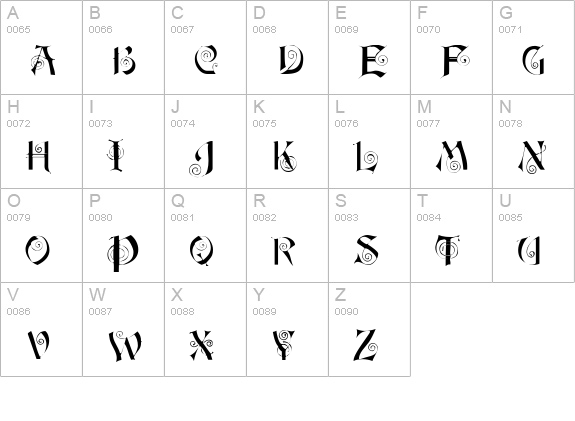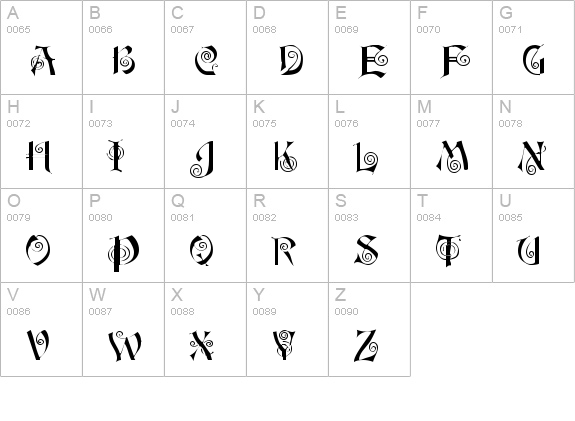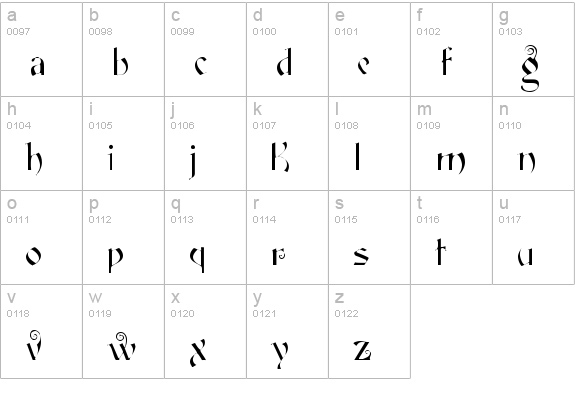
FairyScrollDisplay Font Details
FairyScrollDisplay font is a whimsical and enchanting typeface that brings a touch of magic to any design project. With its delicate and flowing letterforms, this font captures the essence of fairy tales and fantasy worlds. Perfect for adding a touch of whimsy to invitations, greeting cards, posters, and more, FairyScrollDisplay font is sure to captivate and delight. Best of all, it is available for free download at FontsMarket.com, making it accessible to all who wish to add a sprinkle of fairy dust to their creations. Let your imagination take flight with FairyScrollDisplay font today!